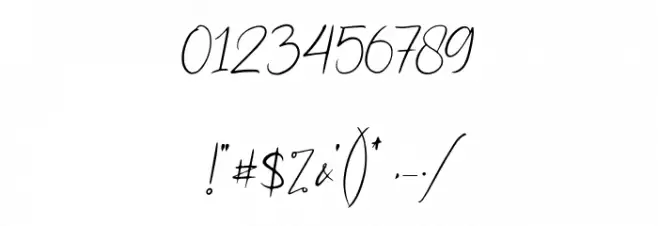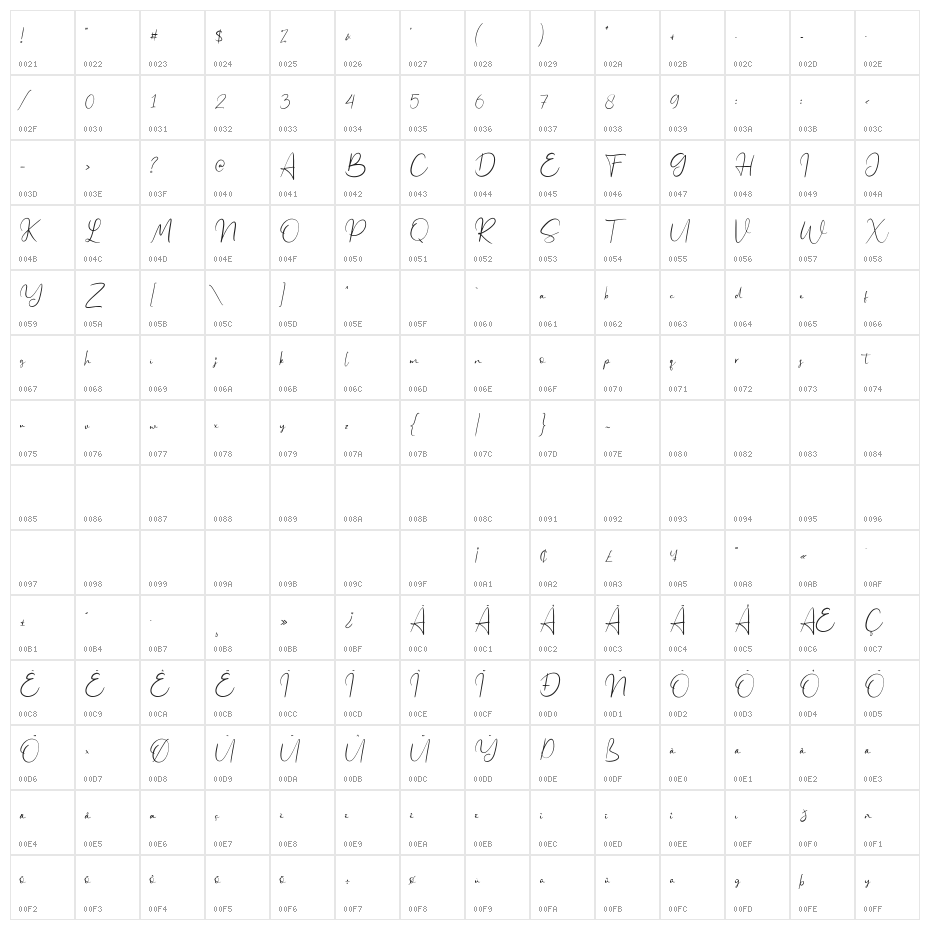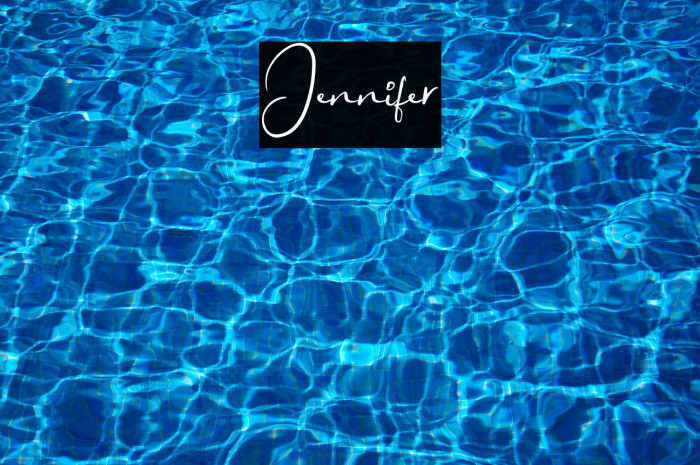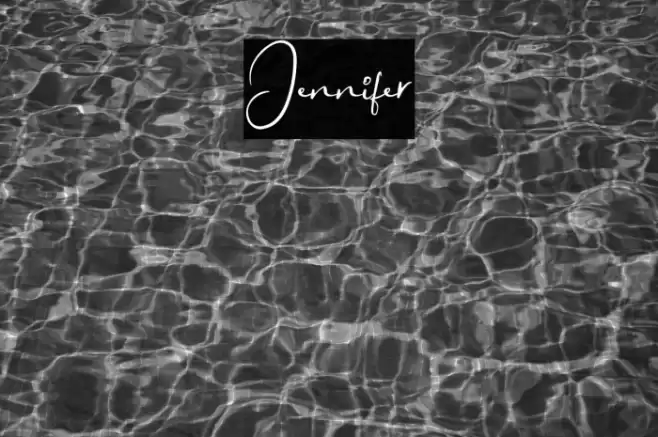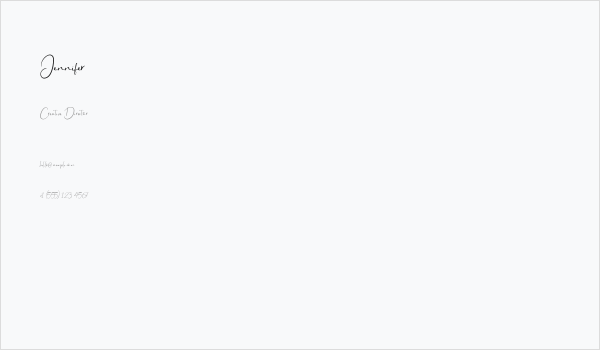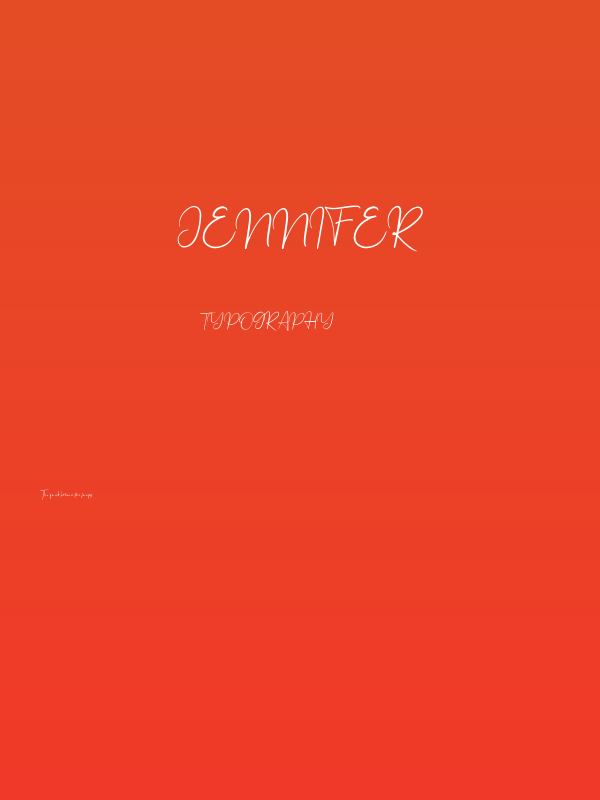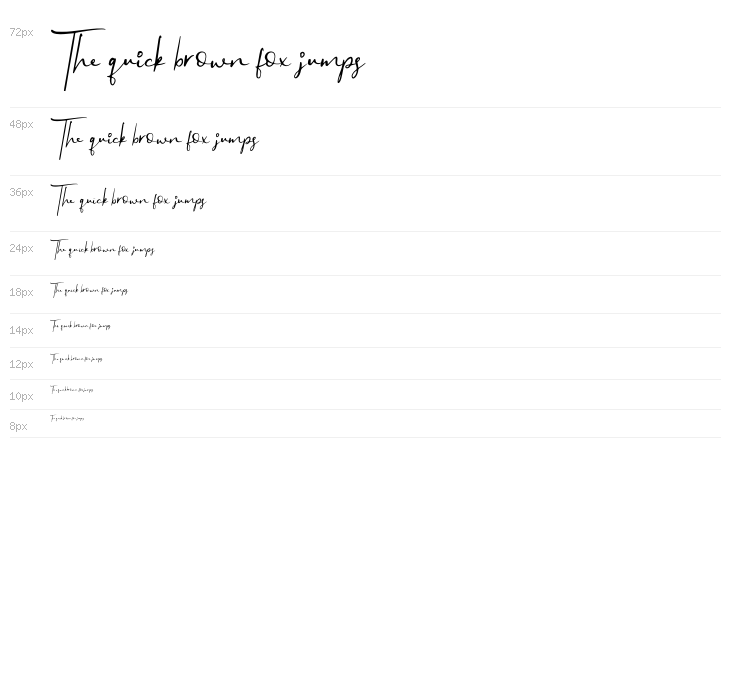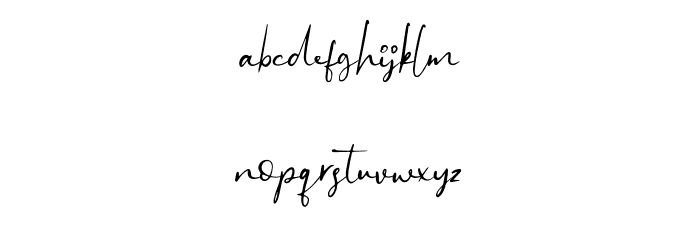
Jennifer Font
Jennifer Description
This font features an elegant and flowing script style, characterized by its smooth, cursive strokes and delicate lines. The uppercase letters are tall and graceful, with a slight slant that adds a dynamic feel. The lowercase letters maintain a consistent flow, with loops and curves that enhance its handwritten appearance. The numerals are clear and legible, complementing the overall aesthetic. Special characters are thoughtfully designed to match the script's elegance, making it suitable for a variety of decorative purposes.
| Proposed Projects | Ideal for wedding invitations, greeting cards, personal branding, and elegant logos. |